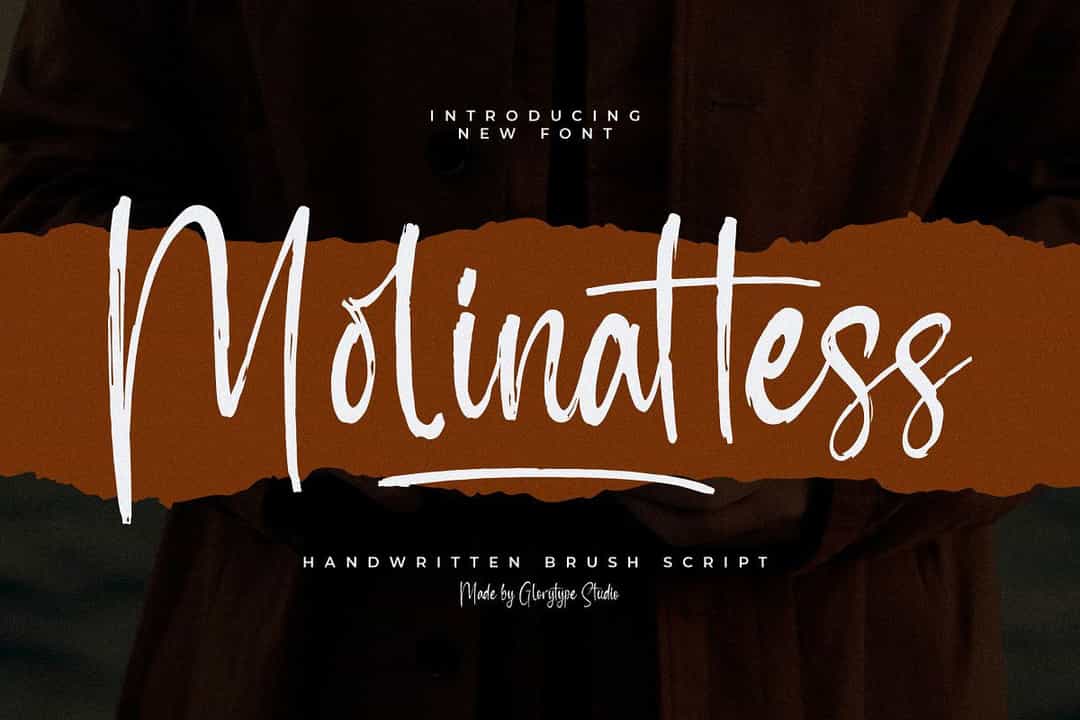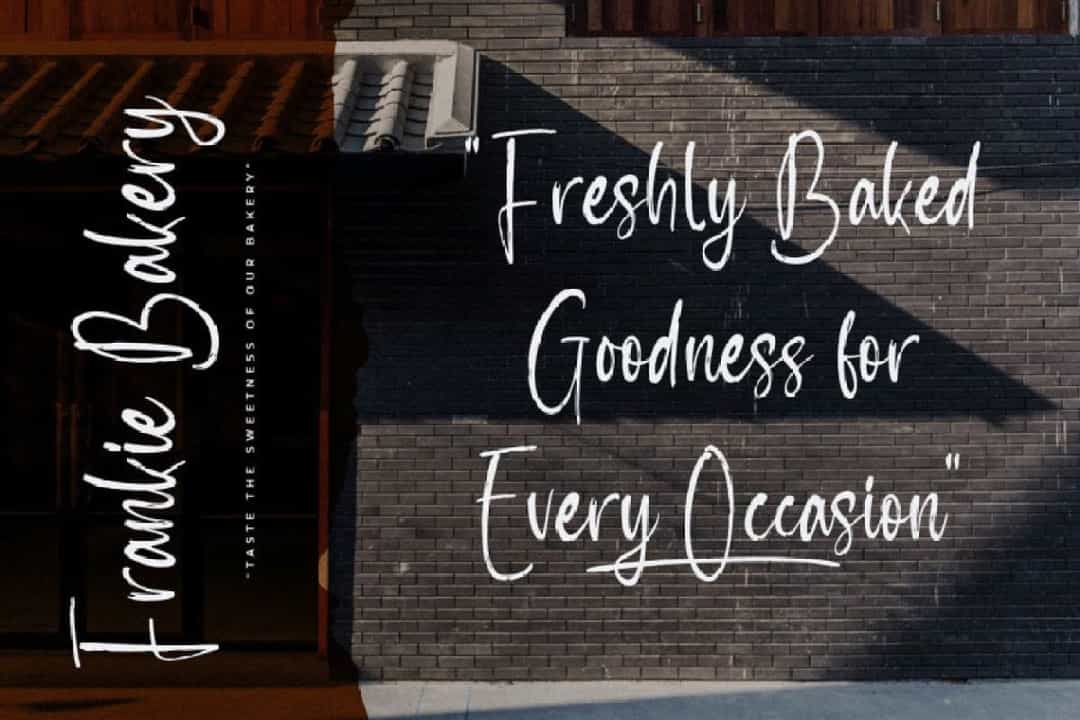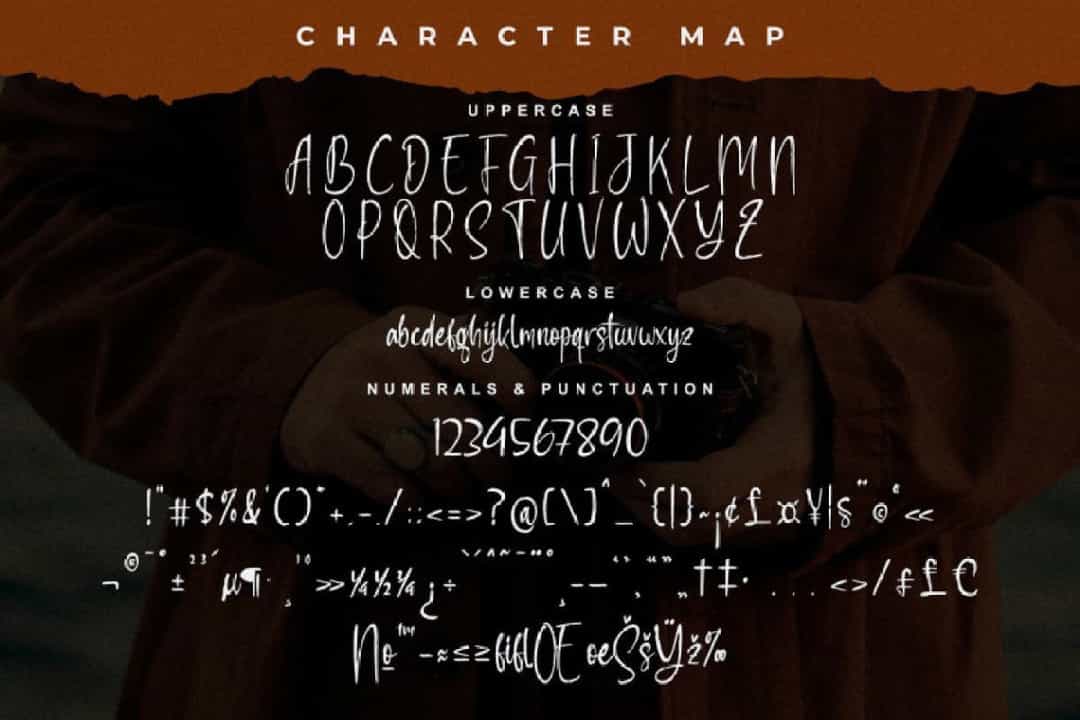
Discover Molinattess Font, part of the Brush collection—a versatile and unique font perfect for adding a personal touch to your projects. Download it for free and enjoy crafting designs with style, from invitations to social media posts. This font is available exclusively for personal use, giving you the freedom to create without limits. Unlock your creativity with Molinattess Font today!
Glorytype Studio’s Molinattes Written Brush Script font, ideal for any variety of projects such as logos, branding and homeware designs packaging, mugs posters quotes bags for shopping t-shirts book covers name cards greeting cards invitation cards watermarks labels photography special events as well as many other exciting undertakings that require script flavor.